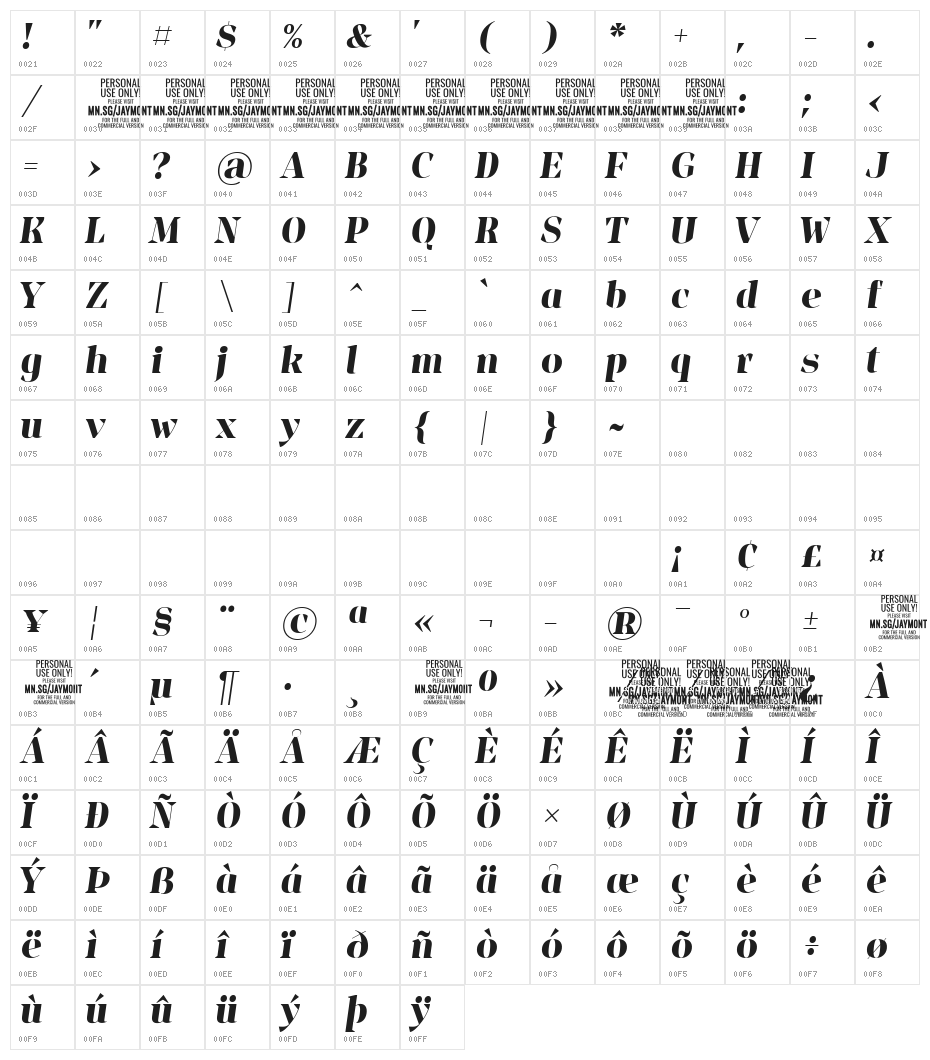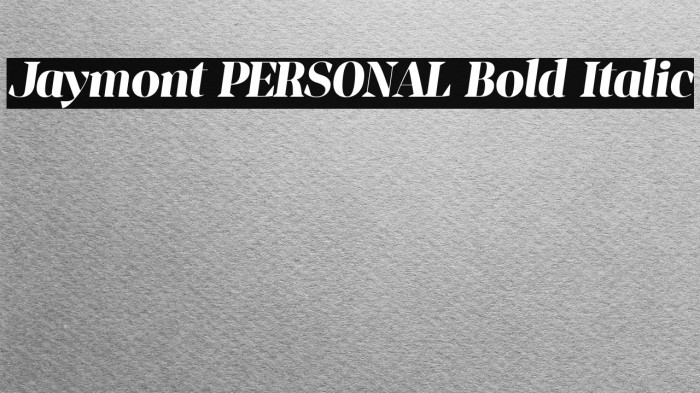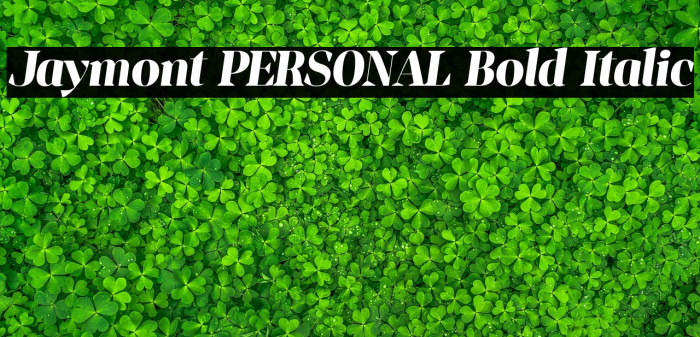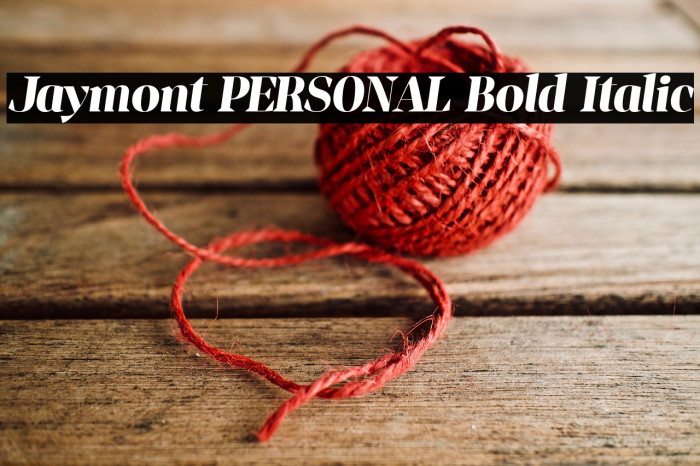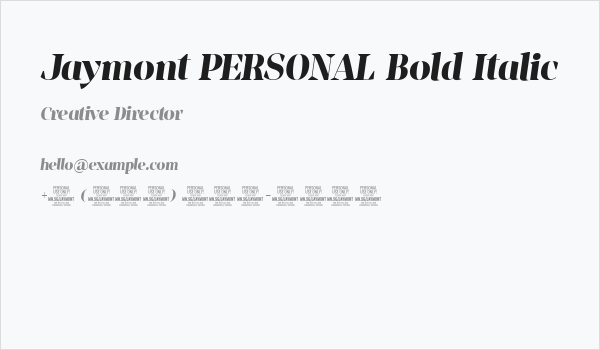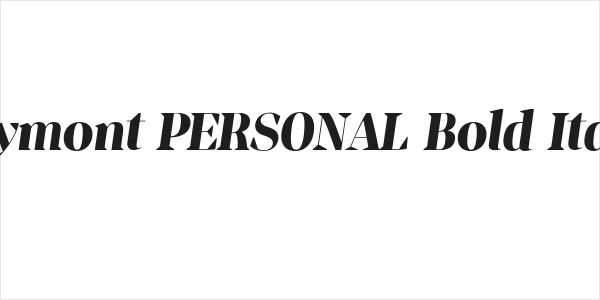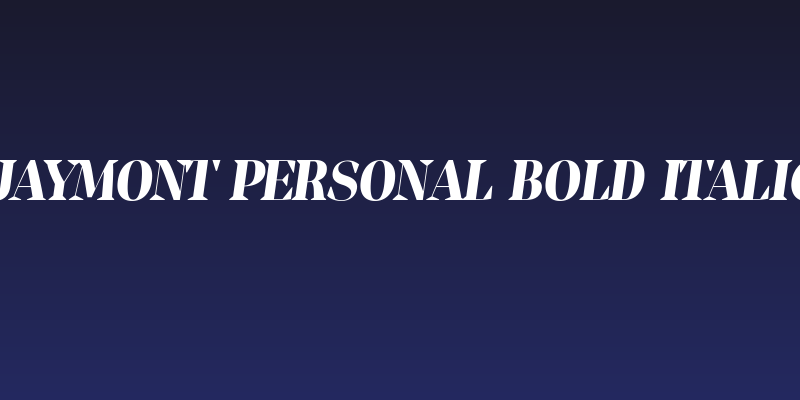
Jaymont PERSONAL Bold Italic Font
Jaymont PERSONAL Bold Italic Description
This font exhibits a bold and italic style, characterized by its strong, dynamic slant and thick strokes. The uppercase letters are particularly striking, with sharp serifs and a pronounced diagonal emphasis that conveys a sense of movement and urgency. The lowercase letters maintain this boldness, offering a consistent visual weight across the alphabet. The numerals and special characters are equally robust, ensuring readability and impact. This font's overall design is both modern and classic, making it versatile for various design needs.
Proposed ProjectsIdeal for branding, headlines, posters, and any project requiring a bold, impactful typeface.